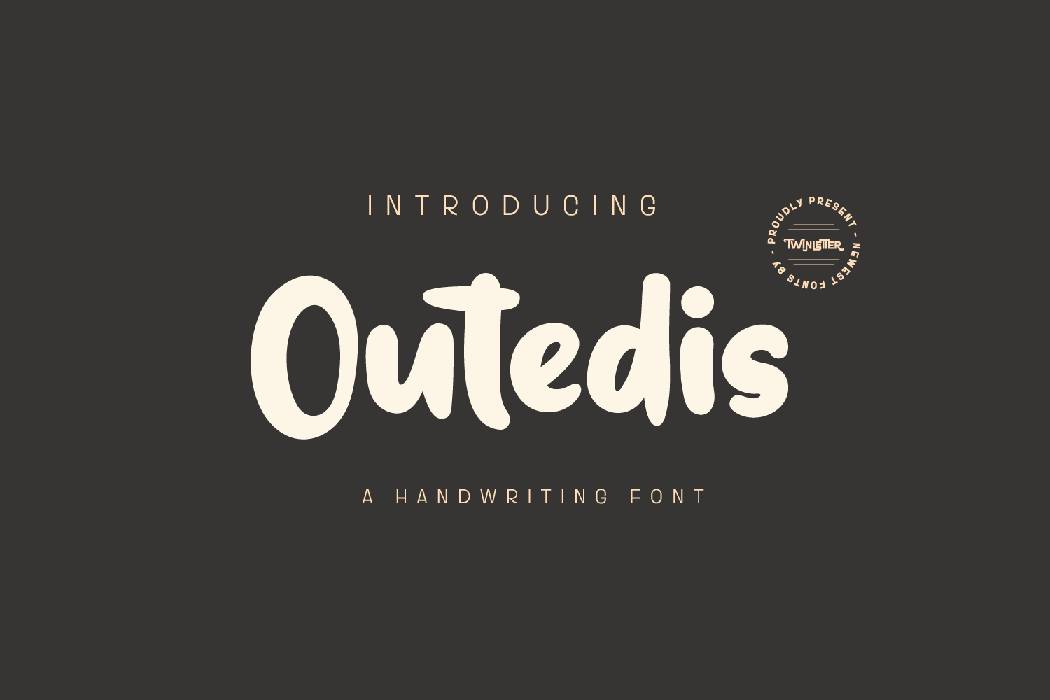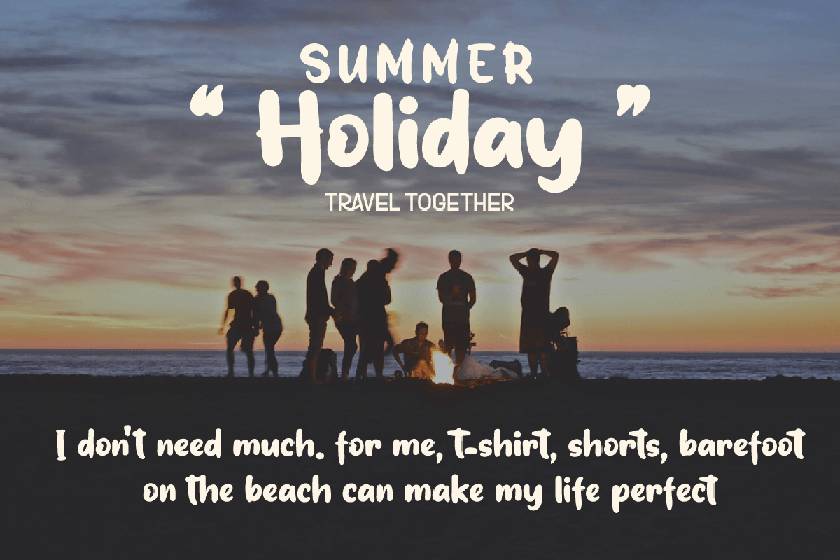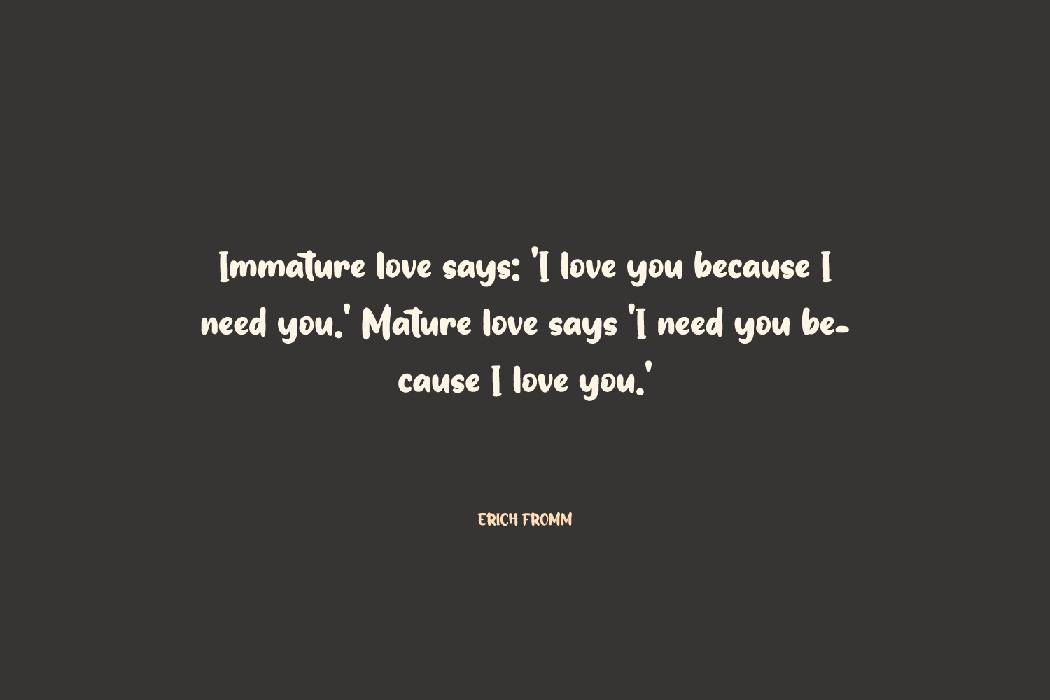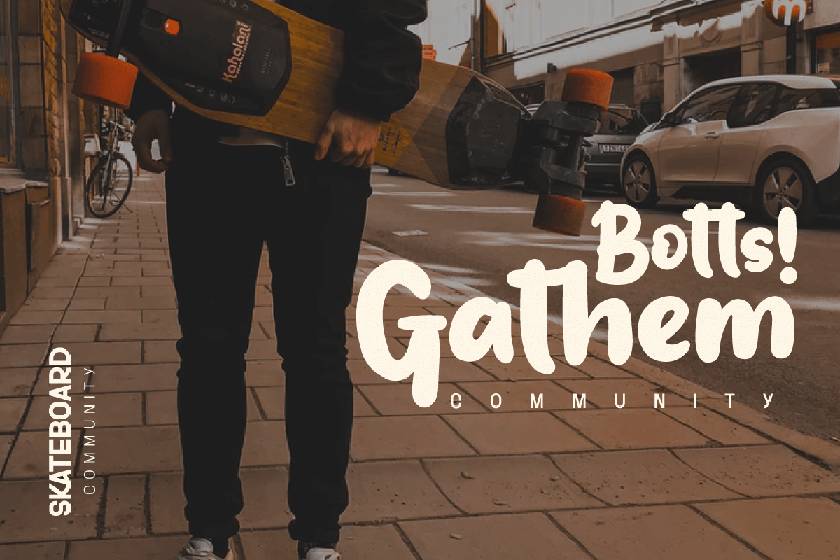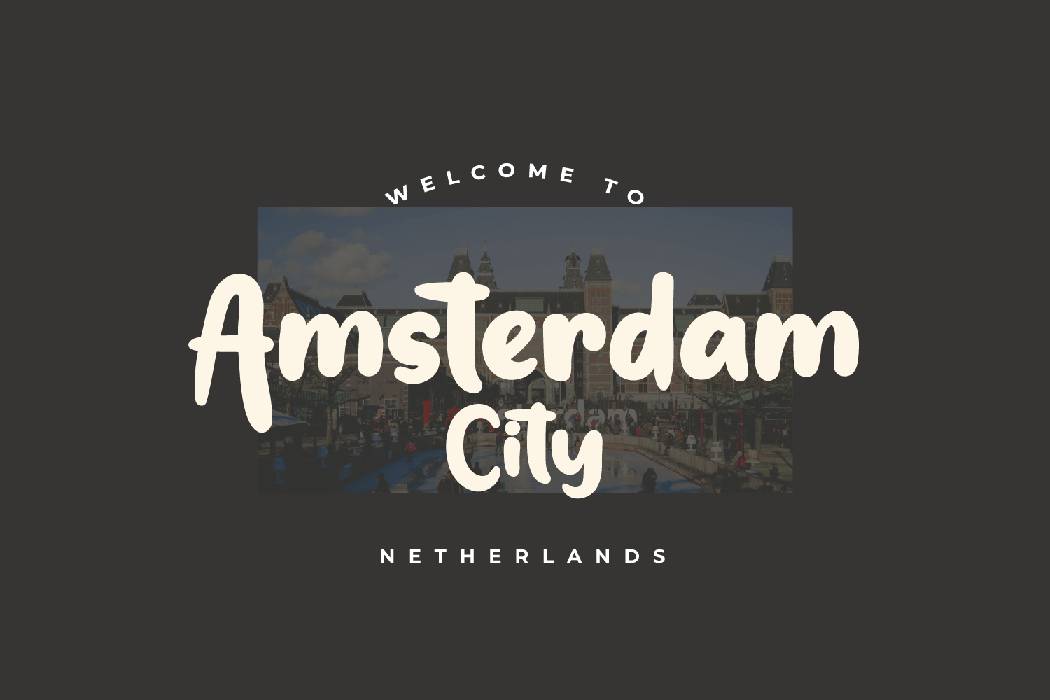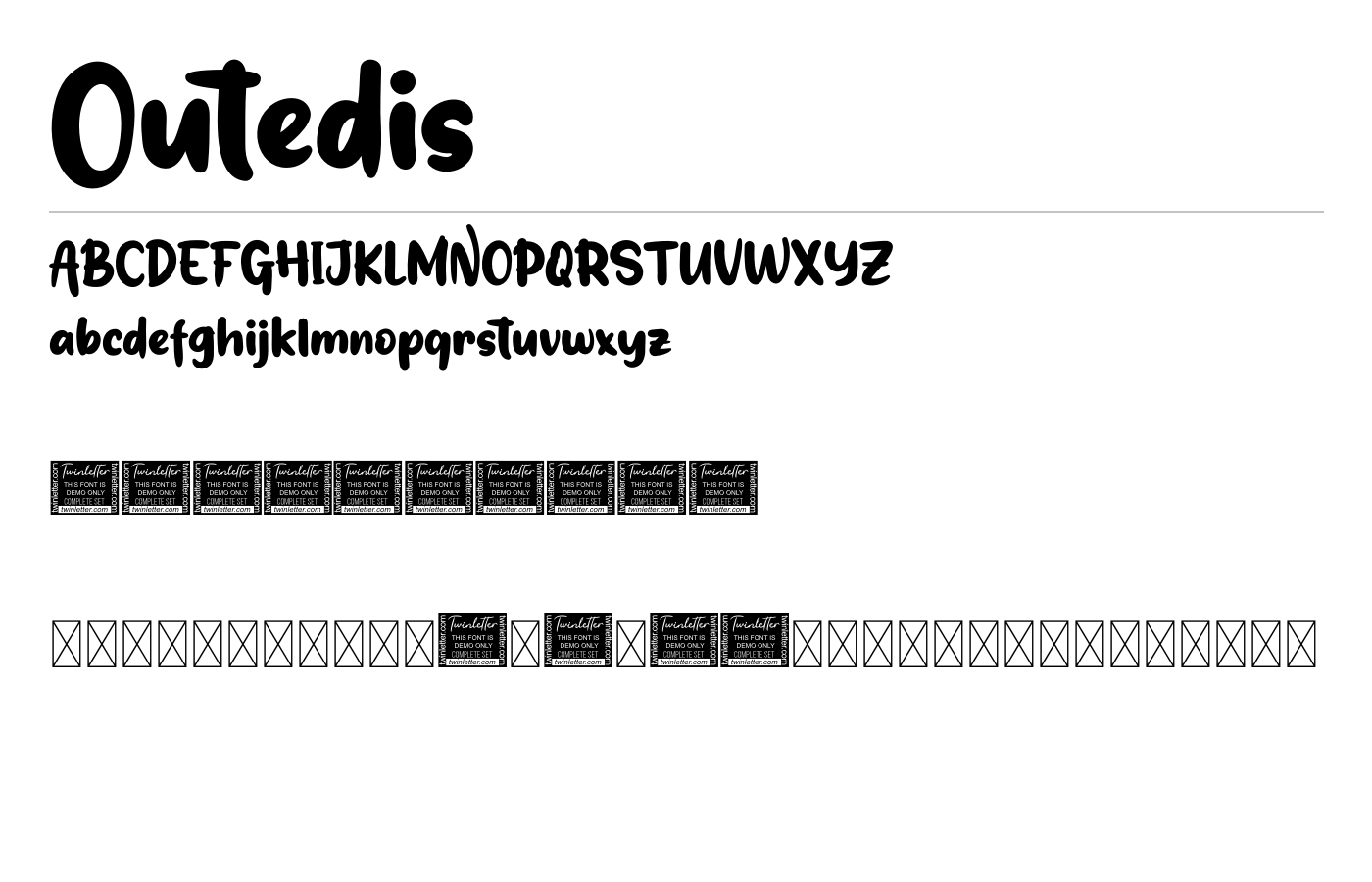
Outedis is a playful and bold sans serif font with a hand-drawn, casual feel. Its rounded, thick strokes and slightly irregular shapes give it a friendly, approachable personality, making it ideal for creative projects, children’s designs, and informal branding where a warm, inviting tone is desired. This font works best in headlines, logos, and packaging where a charming, fun look is needed to engage viewers.
Outedis Font
About Outedis Font